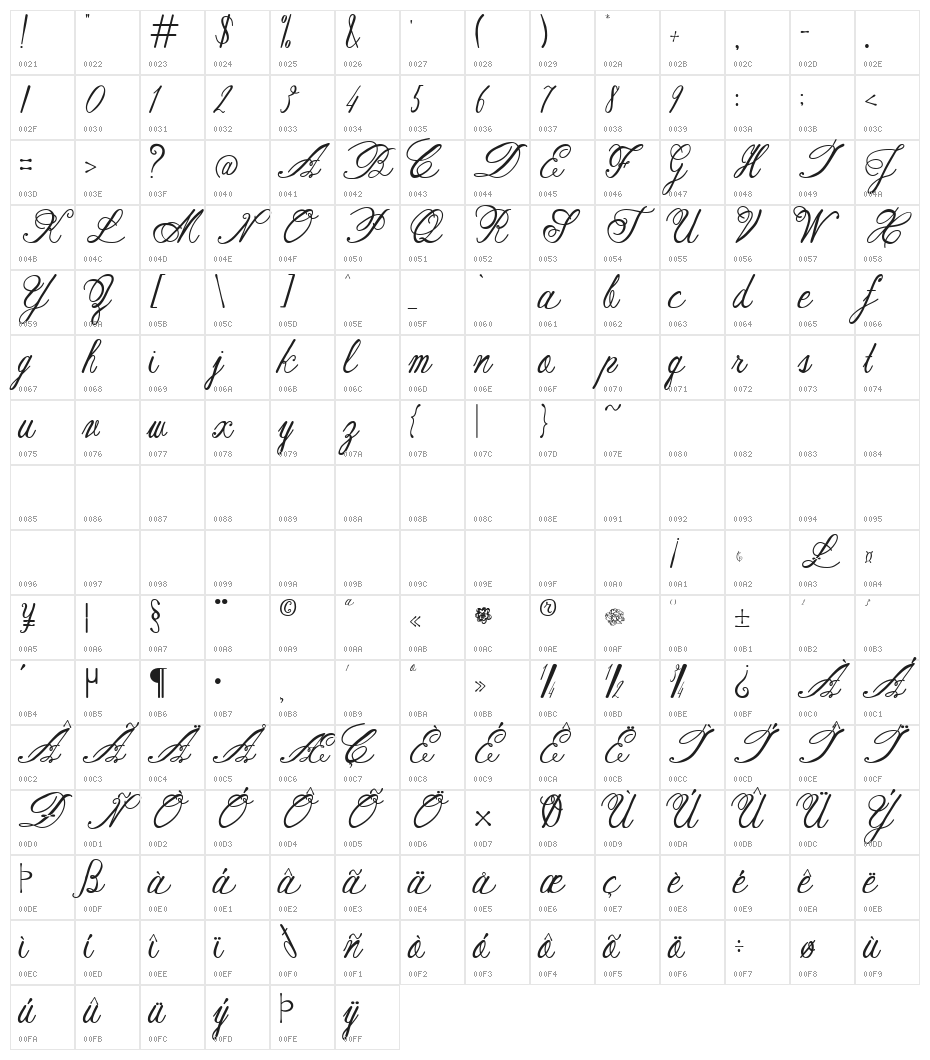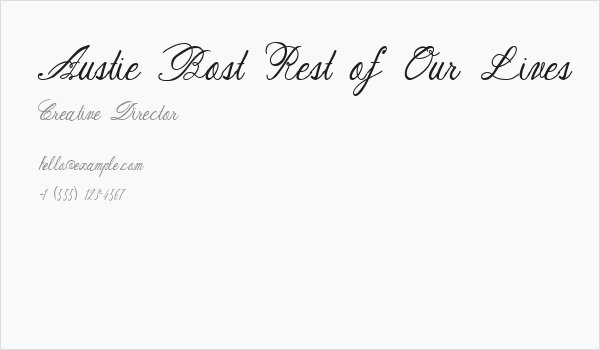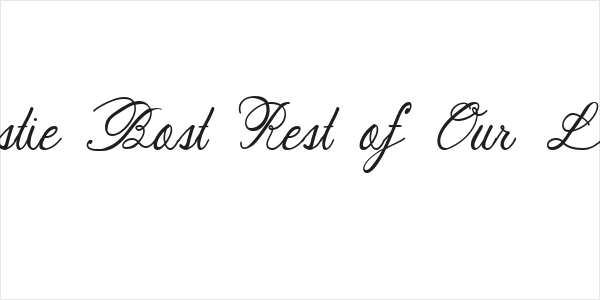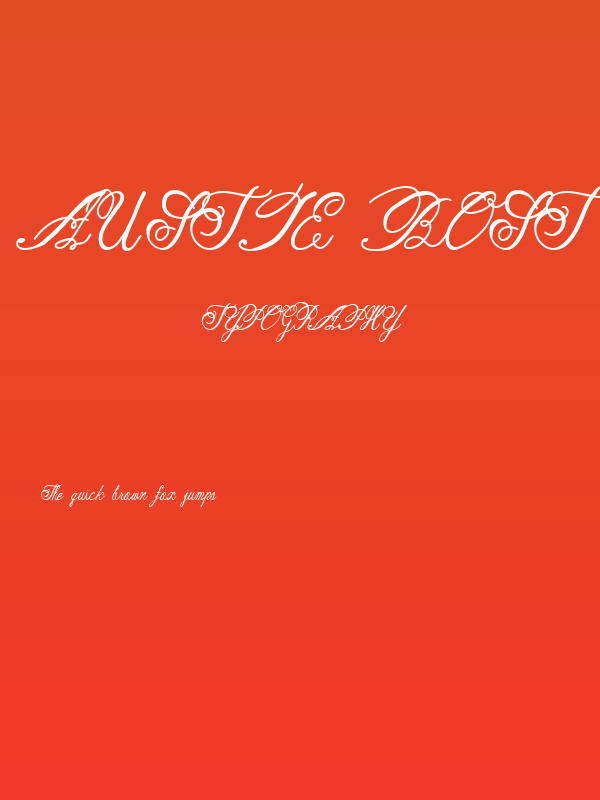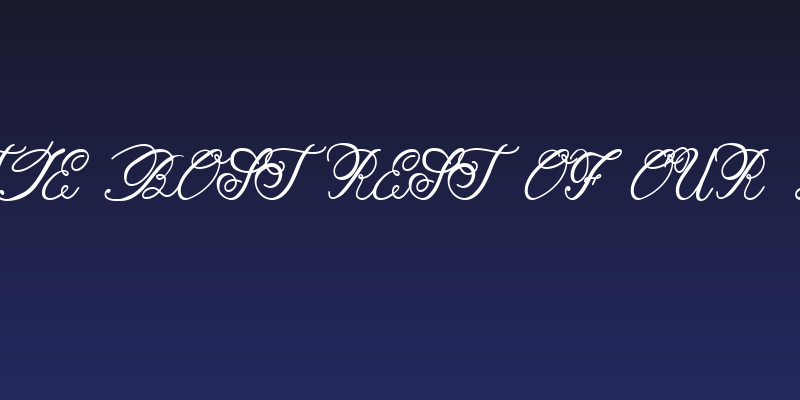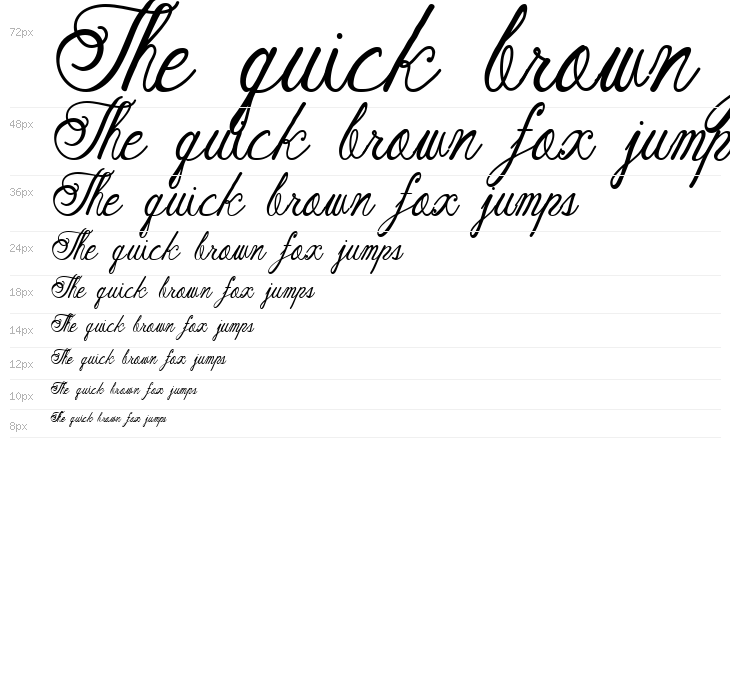
Austie Bost Rest of Our Lives Font
Austie Bost Rest of Our Lives Description
This font features an elegant and flowing script style, characterized by its smooth, cursive letterforms. The uppercase letters are ornate, with intricate loops and swirls that add a touch of sophistication. The lowercase letters maintain a consistent flow, with gentle curves and a slight slant, enhancing the overall graceful appearance. Numbers and special characters are designed to complement the script style, ensuring a cohesive look across all elements. The font's delicate strokes and artistic flair make it suitable for projects that require a personal, handwritten touch.
Overall StyleElegant, Decorative
Use CaseHeadlines, Invitations, Personal Branding
Proposed ProjectsIdeal for wedding invitations, greeting cards, personal branding, and elegant packaging designs.